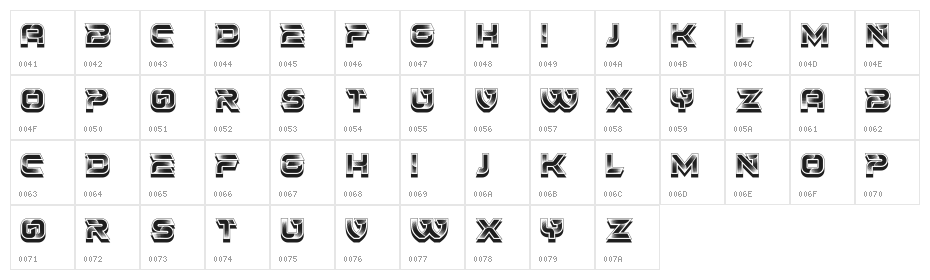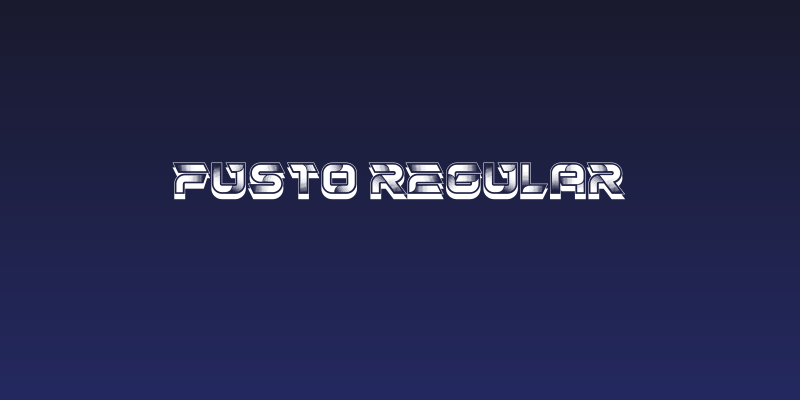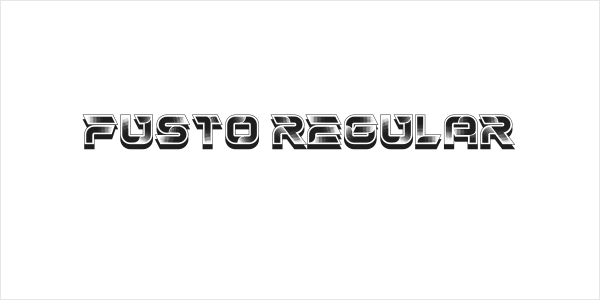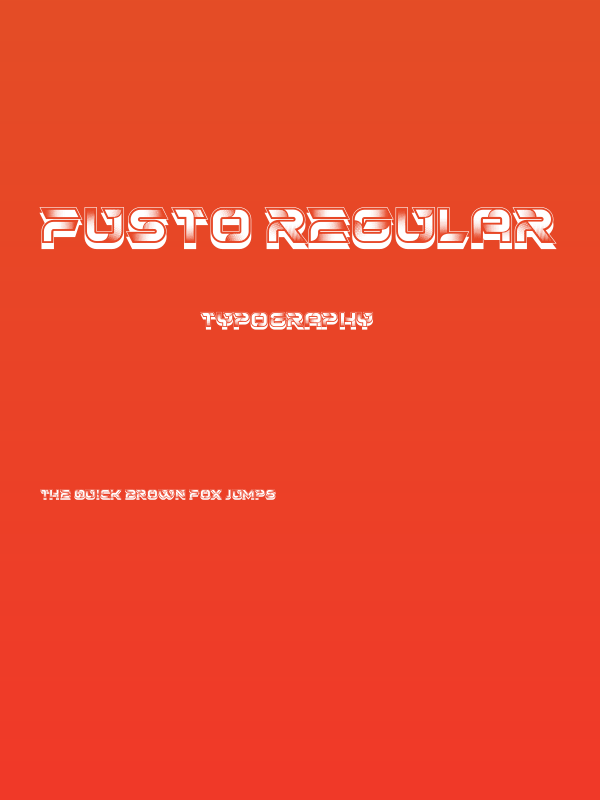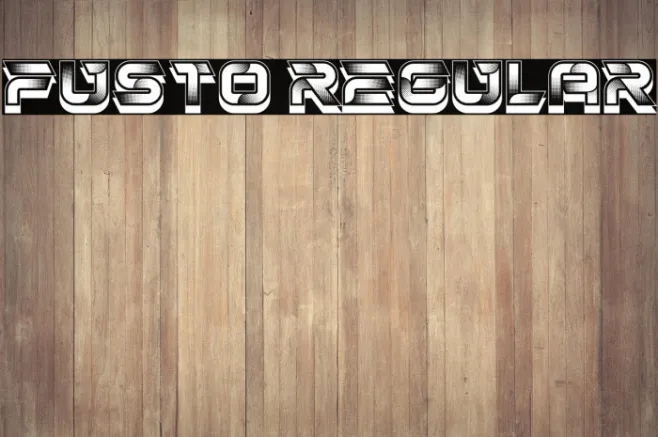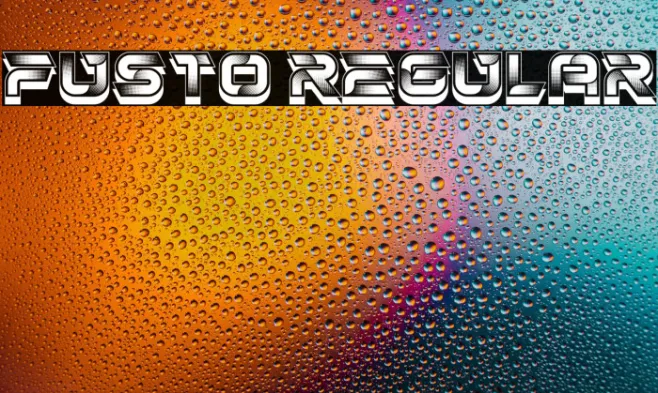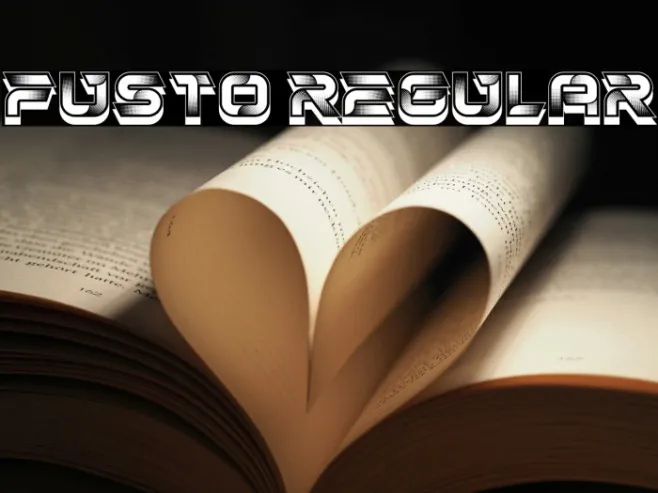
Fusto Regular Font
Fusto Regular Description
This font features a bold, futuristic design with a strong emphasis on geometric shapes and sharp angles. The characters are outlined with a thick border, creating a three-dimensional effect that adds depth and visual interest. The interior of each letter is filled with a gradient pattern, enhancing the dynamic and modern appearance. The font is highly stylized, making it ideal for projects that require a striking and memorable visual impact. Its unique design elements make it stand out, suitable for creative and innovative applications.
| Overall Style | Futuristic, Modern |
| Proposed Projects | Ideal for sci-fi themed posters, video game titles, futuristic branding, and technology-related advertisements. |